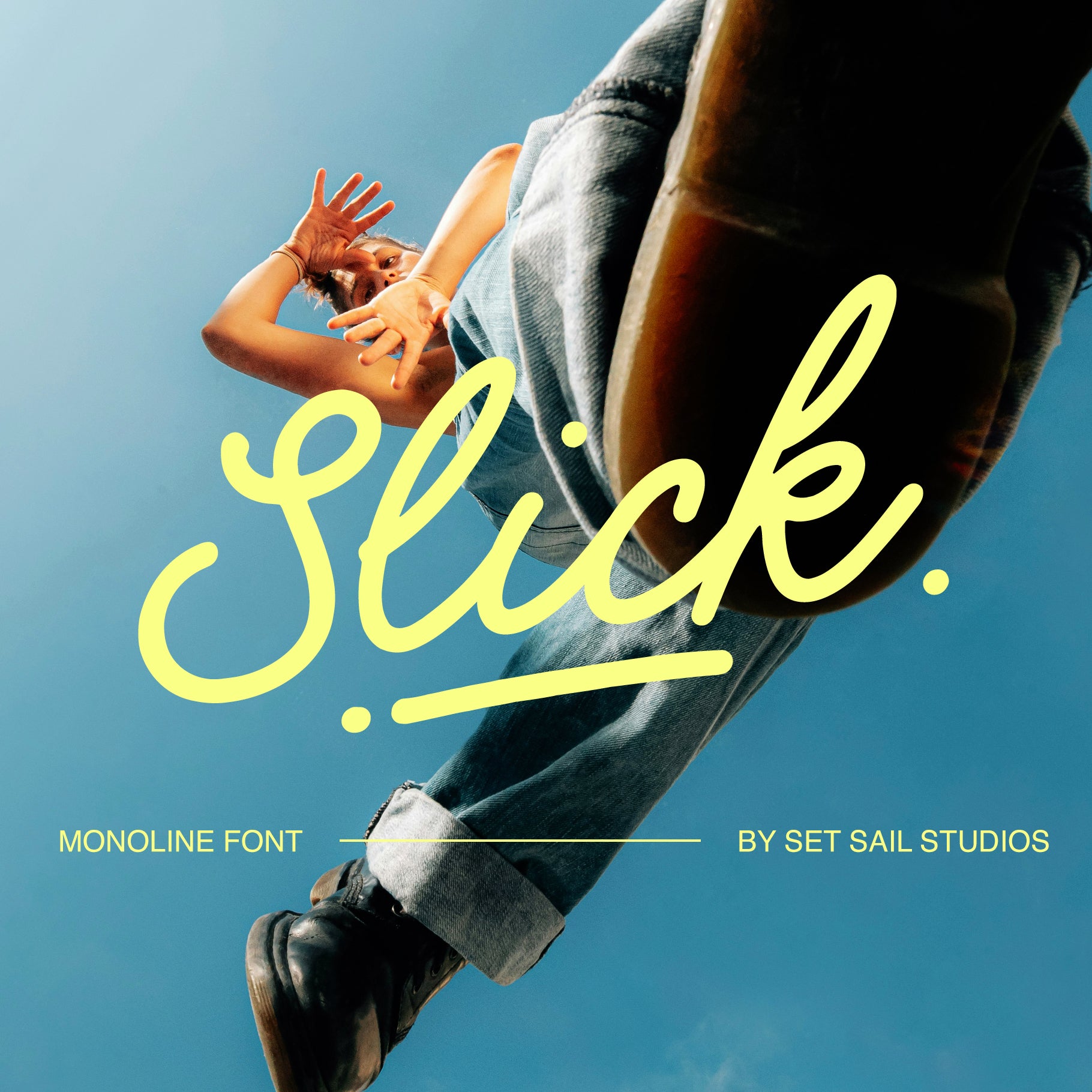
Slick Font
The Slick Font is a monoline script font featuring a full set of characters, an alternate character set, and 26 swashes for added design flexibility. It also includes 23 ligatures for improved letter flow and supports multiple languages, making it a versatile choice for various design projects.